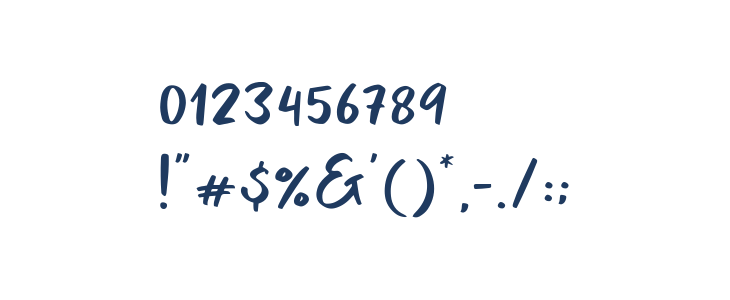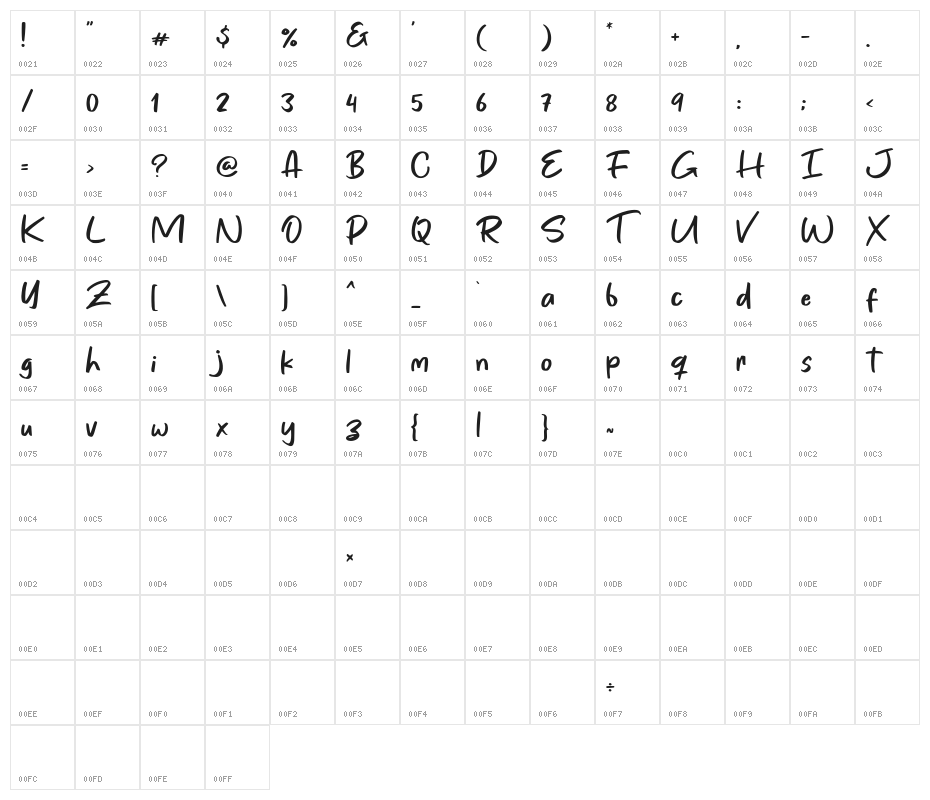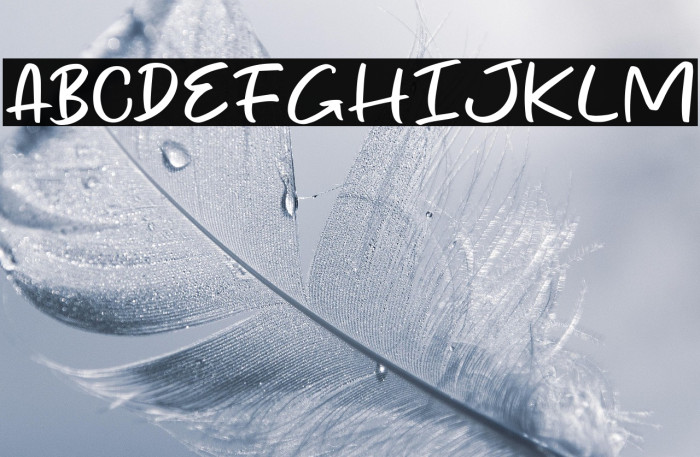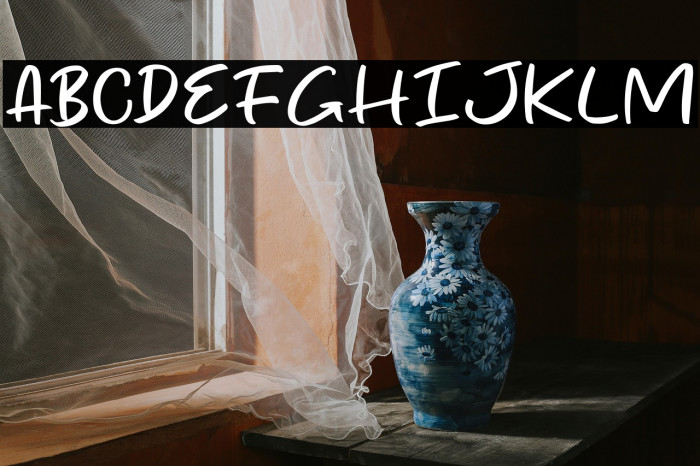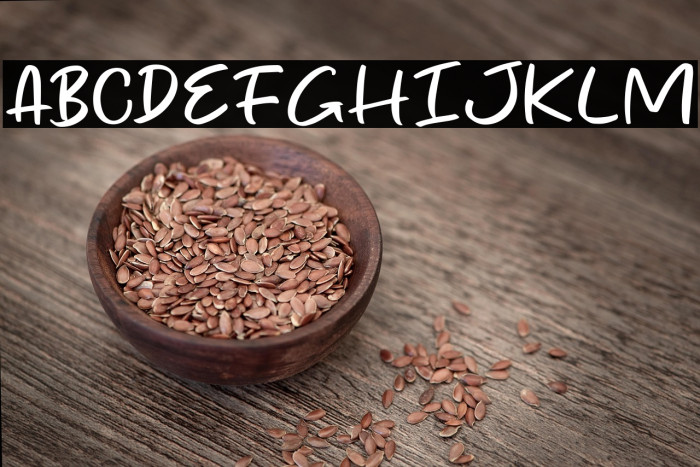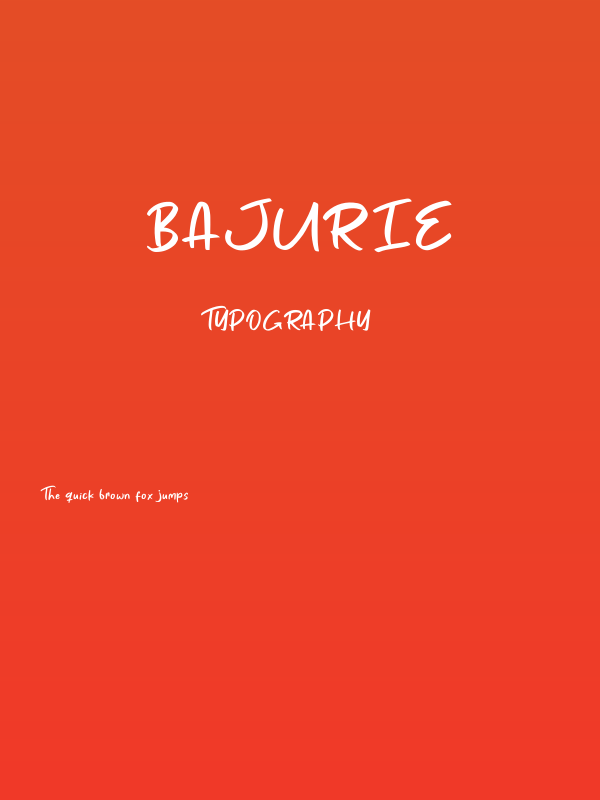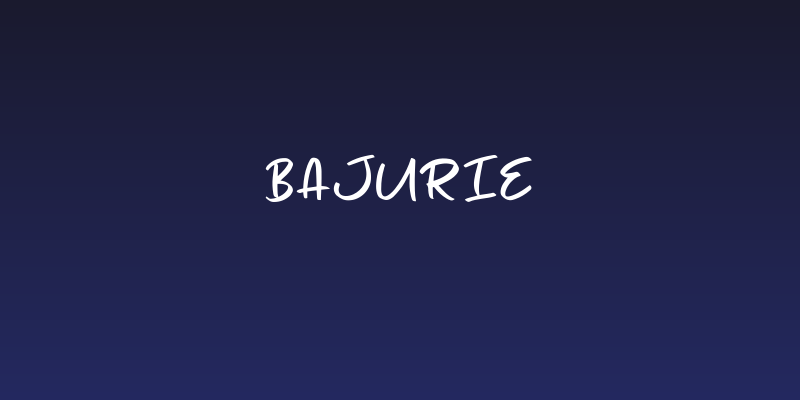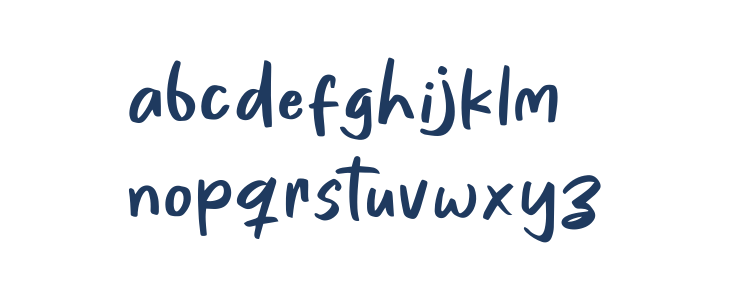
Bajurie Font
Bajurie Description
This font features a playful and casual handwritten style, characterized by smooth, flowing strokes and a natural, organic feel. The uppercase letters are bold and slightly slanted, giving them a dynamic appearance, while the lowercase letters maintain a consistent rhythm with rounded edges. The numerals are clear and legible, matching the overall informal aesthetic. Special characters are creatively integrated, adding to the font's charm. This font exudes a friendly and approachable vibe, making it suitable for a variety of creative applications.